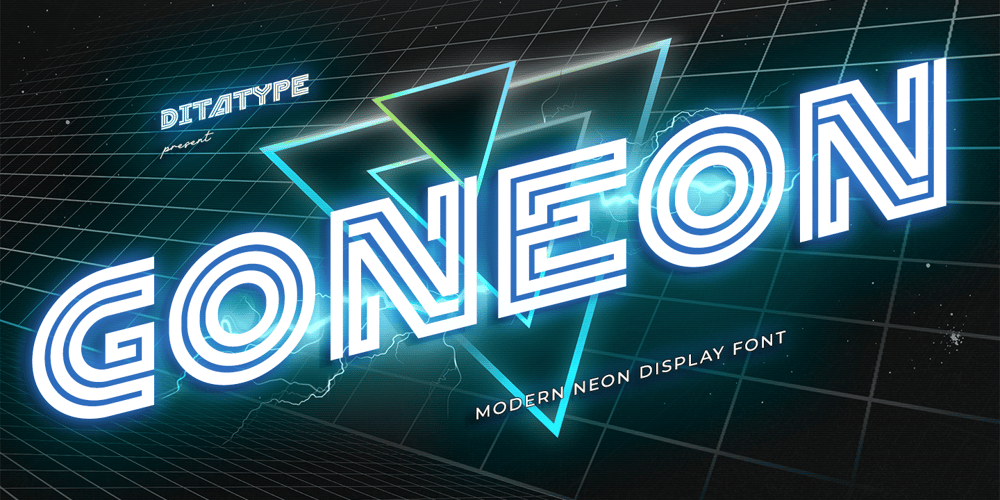
Goneon Font Family was designed by Donis Miftahudin and published by Ditatype. Goneon contains 1 styles and family package options. Goneon is a vibrant and eye-catching display font designed to bring the electrifying energy of neon lights to your designs. With its big, bold uppercase letterforms and mesmerizing neon style, this typeface captures the essence of a lively and dynamic atmosphere.. Each letter is meticulously crafted to emanate a radiant and electrifying glow, just like the vibrant neon signs that illuminate city streets at night. This neon style adds a touch of excitement and energy, instantly drawing the viewer’s attention. Inspired by the pulsating rhythm of city nightlife, Goneon exudes a sense of modernity and vibrancy. The font captures the essence of an urban atmosphere, casting a dazzling neon glow that creates a lively and captivating visual impact. Each letter radiates with an unmistakable charm, bringing your designs to life with its electrifying vibes.Features: Alternates Multilingual Supports PUA Encoded Numerals and Punctuations Goneon perfect for headlines, banners, posters, and any design that requires a bold statement. The neon style adds an extra layer of excitement, making your text shine with a dynamic and eye-catching appeal. Whether you’re working on advertising campaigns, event promotions, digital artwork, or any creative project that calls for a lively aesthetic, this font will instantly infuse your designs with an electrifying energy. It particularly shines in applications related to nightlife, entertainment, music, and urban-themed designs. Find out more ways to use this font by taking a look at the font preview.Thanks for purchasing our fonts. Hopefully, you have a great time using our font. Feel free to contact us anytime for further information or when you have trouble with the font. Thanks a lot and happy designing.